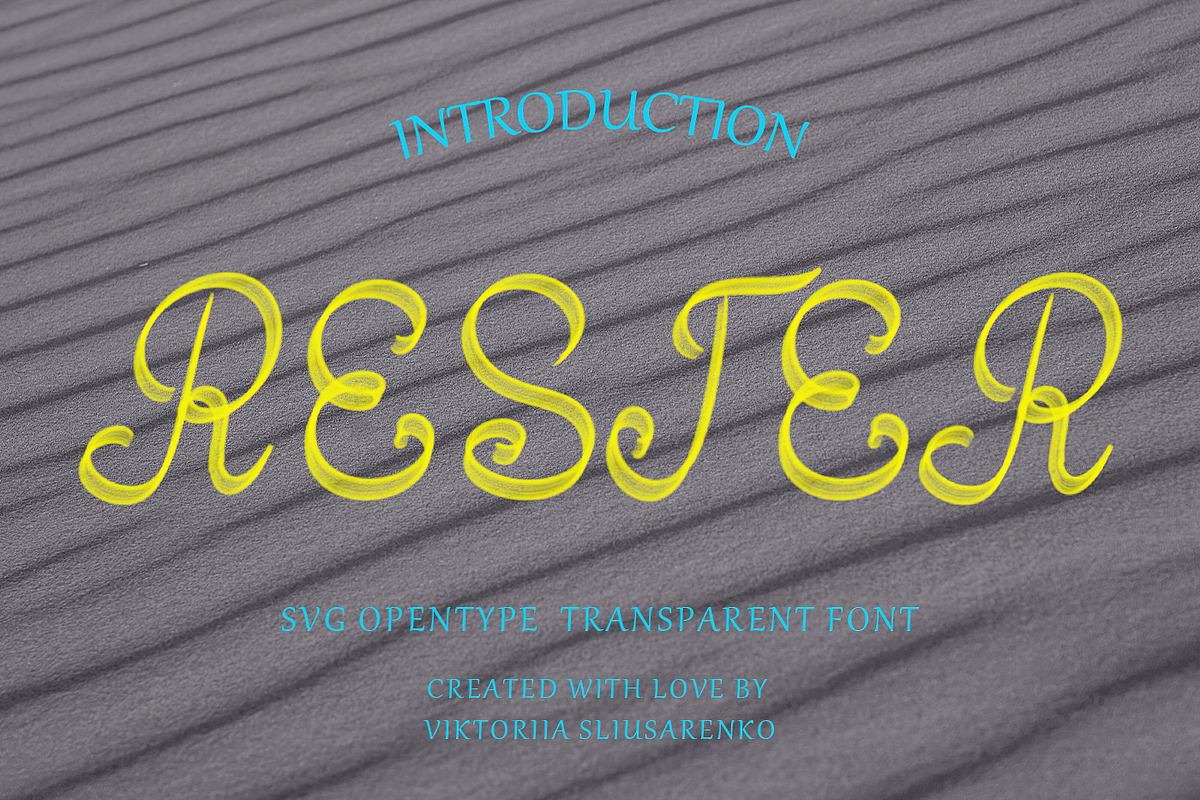
RESTER SVG OpenType Font Free Download is a stunning, high-impact brush script font that uses SVG technology to showcase rich textures, transparency, and vibrant hand-painted details. Perfect for eye-catching headlines, branding, album covers, social media graphics, and poster designs, this font gives your work an authentic, handcrafted look that traditional fonts simply can’t match.
Crafted with real brush strokes and high-resolution detail, RESTER SVG OpenType Font Free Download offers a realistic and artistic aesthetic. It’s ideal for designers looking to add raw energy and creativity to their projects. To access the full power of the SVG version, you'll need compatible software like Adobe Photoshop CC 2017+, Illustrator CC 2018+, or Procreate.